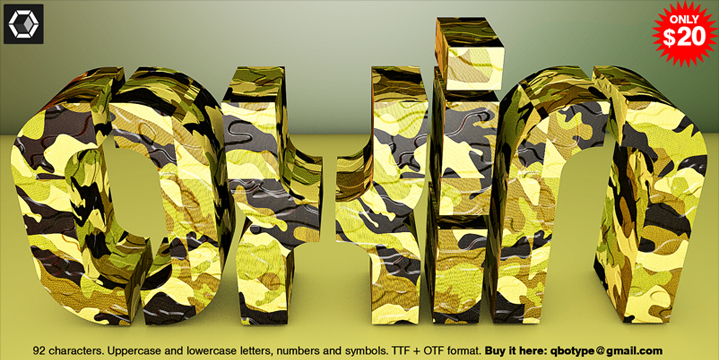
Oxin Army
Oxin Army is a captivating display font that exudes a strong military aesthetic. Designed by Carlos Matteoli, this font boasts a robust, angular style that immediately commands attention. The sharp, geometric letterforms and distinctive condensed shape lend a sense of power and authority, making Oxin Army an ideal choice for branding, packaging, or any design requiring a bold, disciplined visual impact. The font's versatility allows it to seamlessly transition between digital and print applications, elevating the aesthetic of posters, advertisements, or even military-themed merchandise.
Oxin Army's striking appearance and impactful presence make it a compelling option for designers seeking to create a memorable, authoritative impression.